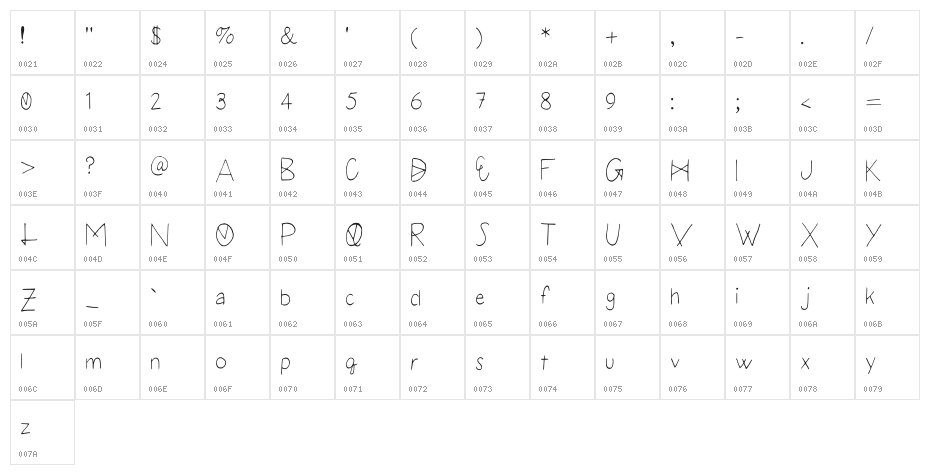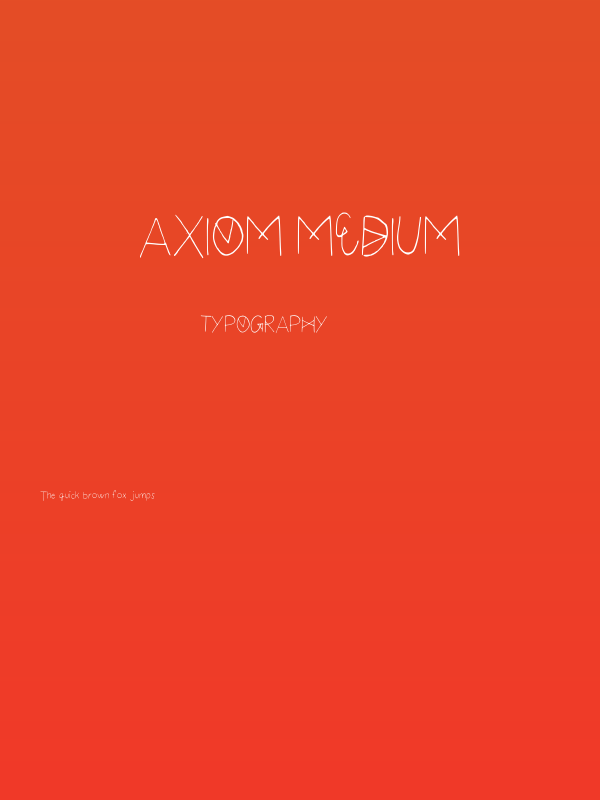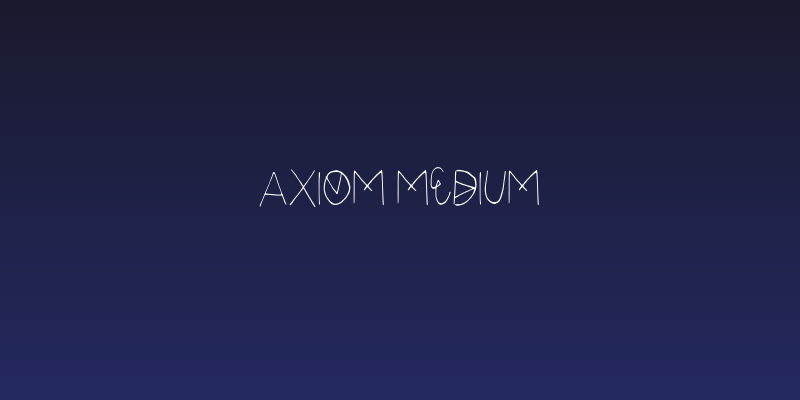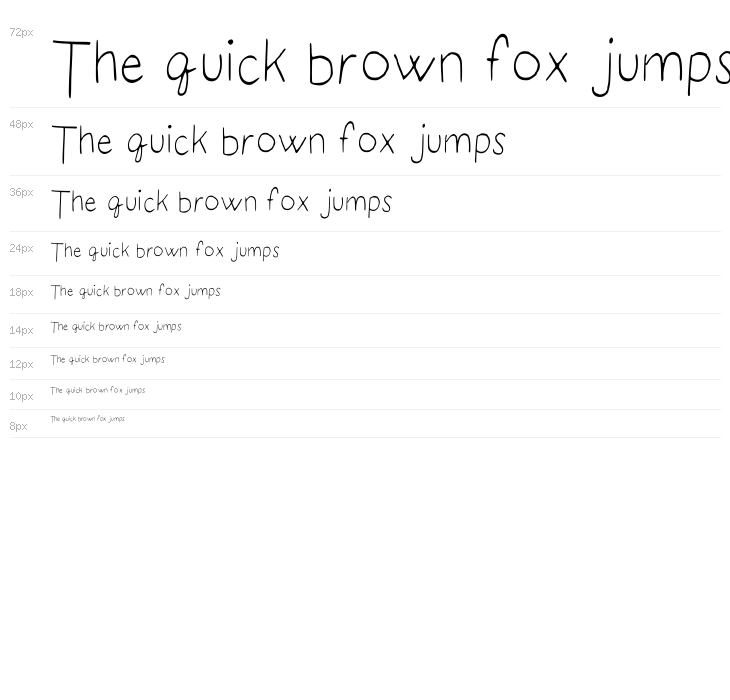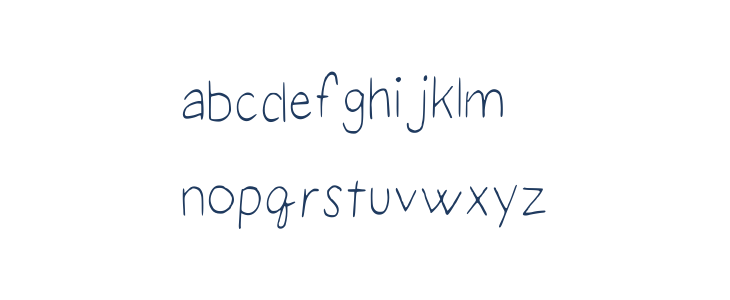
Axiom Medium Font
Axiom Medium Description
This font features a unique and artistic style with a playful, hand-drawn appearance. The uppercase letters have a geometric and abstract quality, with some characters incorporating unusual shapes and lines that create a sense of movement and creativity. The lowercase letters maintain a consistent style, with rounded edges and a casual, friendly look. The numerals are clear and legible, while the special characters add a touch of whimsy with their distinctive designs. Overall, this font combines a modern aesthetic with a touch of artistic flair, making it suitable for creative and informal projects.
| Overall Style | Artistic, Modern, Playful |
| Proposed Projects | Ideal for creative projects, children's books, artistic posters, and informal branding. |